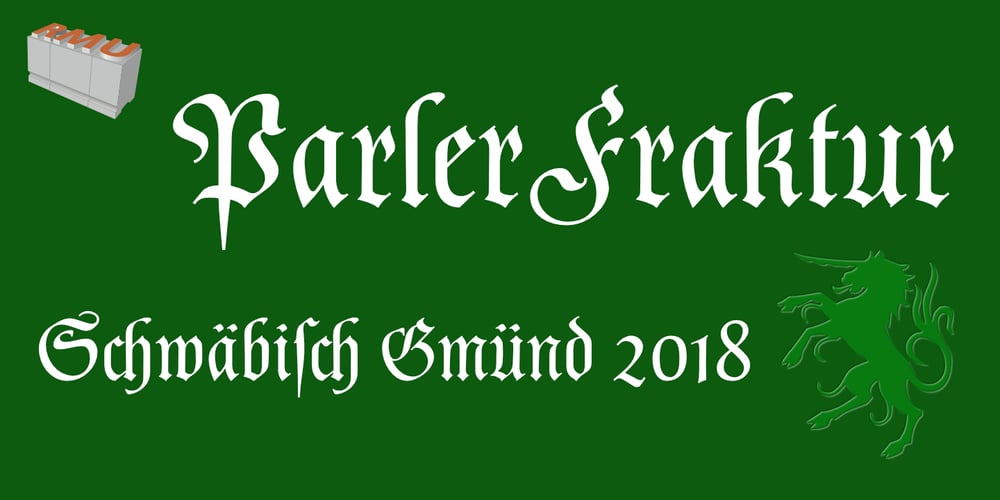
Parler Fraktur
Parler Fraktur font
Parler Fraktur Font Family was designed by Ralph M. Unger and published by RMU. Parler Fraktur contains 1 styles and family package options. Friedrich Poppl’s blackletter font, carefully redrawn and redesigned for modern use, named after the Parler master builder family who built the Schwaebisch Gmuend cathedral. This font contains the letter ‚long s‘ which can be reached in two ways. Either you use the OpenType feature ‚historical forms‘, or you type the integral sign + the option key on your keyboard.